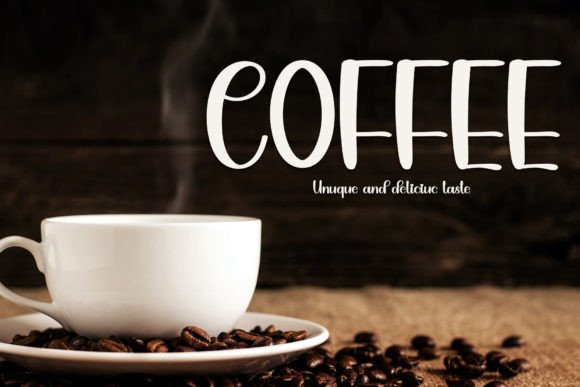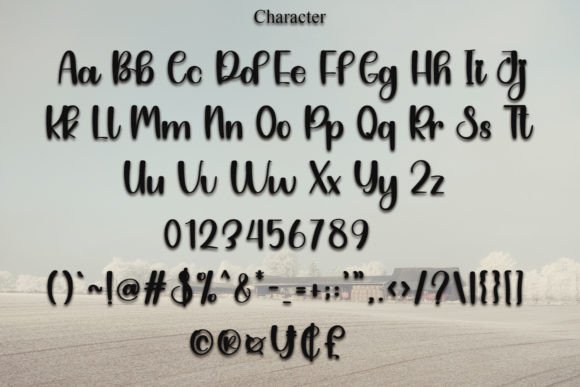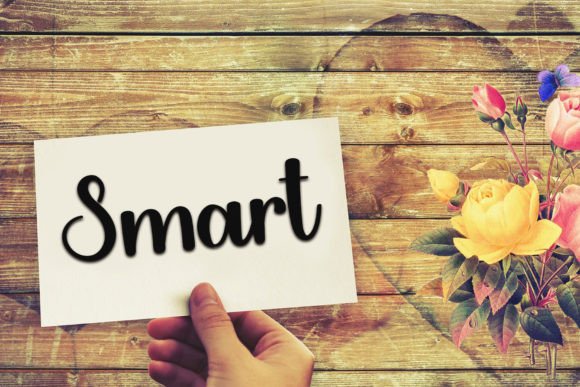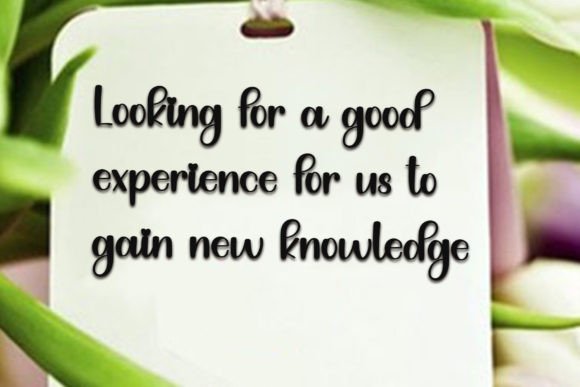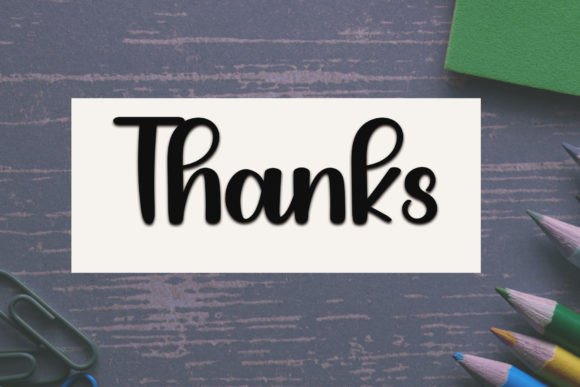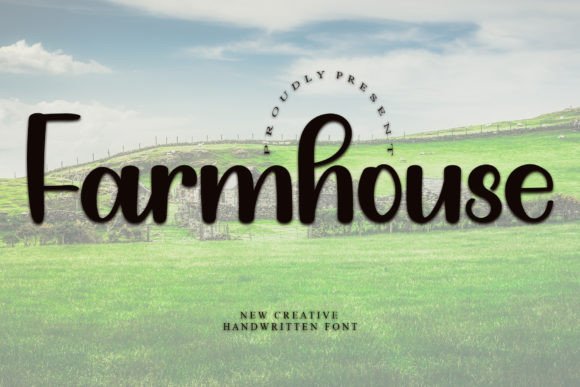
Introducing Farmhouse Font: A Charming Handwritten Display Font
Are you looking for a font that can add a touch of romance and whimsy to your next project? Look no further than Farmhouse Font, a beautiful handwritten display font that is sure to enchant. With its versatile design and wide range of applications, Farmhouse Font is the perfect choice for designers and crafters alike.
Farmhouse Font is a carefully crafted handwritten display font that exudes a sense of warmth and charm. Its elegant and flowing lines are reminiscent of traditional handwriting, making it perfect for adding a personal touch to any project. Whether you’re creating greeting cards, headlines, or social media graphics, Farmhouse Font is guaranteed to add a romantic feel that will capture the hearts of your audience.
- Handwritten Design: Farmhouse Font features a beautiful handwritten design that is both elegant and whimsical.
- Versatile: With its wide range of applications, Farmhouse Font can be used for everything from greeting cards to headlines, and even social media graphics.
- Romantic Feel: Farmhouse Font is guaranteed to add a romantic feel to your next project, making it perfect for wedding invitations, anniversary cards, and more.
- Easily Readable: Despite its ornate design, Farmhouse Font is easily readable, making it perfect for use in both digital and print materials.
Applications of Farmhouse Font
Farmhouse Font is an incredibly versatile font that can be used in a wide range of applications, including:
- Greeting Cards: Add a personal touch to your greeting cards with Farmhouse Font, perfect for birthdays, weddings, and holidays.
- Headlines: Use Farmhouse Font to create eye-catching headlines for your blog posts, articles, and social media graphics.
- Social Media Graphics: Add a touch of elegance to your social media graphics with Farmhouse Font, perfect for Instagram, Facebook, and Pinterest.
- Wedding Invitations: Make your wedding invitations truly special with Farmhouse Font, guaranteed to add a romantic feel to your big day.
- Crafting Projects: Use Farmhouse Font to add a personal touch to your crafting projects, such as scrapbooking, journaling, and more.
- Use it Sparingly: Farmhouse Font is a statement font, so use it sparingly to add emphasis to your text.
- Pair it with Other Fonts: Experiment with pairing Farmhouse Font with other fonts to create a unique and visually appealing design.
- Adjust the Size: Adjust the size of Farmhouse Font to create visual interest and hierarchy in your design.
- Experiment with Colors: Experiment with different colors to find the perfect match for your Farmhouse Font design.
Farmhouse Font is a beautiful handwritten display font that is sure to add a touch of romance and whimsy to your next project. With its versatile design and wide range of applications, Farmhouse Font is the perfect choice for designers and crafters alike. Whether you’re creating greeting cards, headlines, or social media graphics, Farmhouse Font is guaranteed to make your project stand out. So why wait? Download Farmhouse Font today and start creating your own enchanting designs!